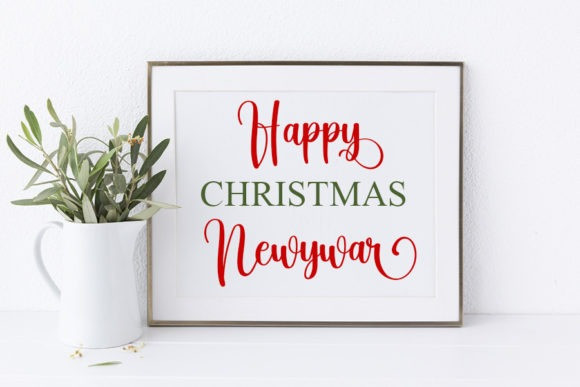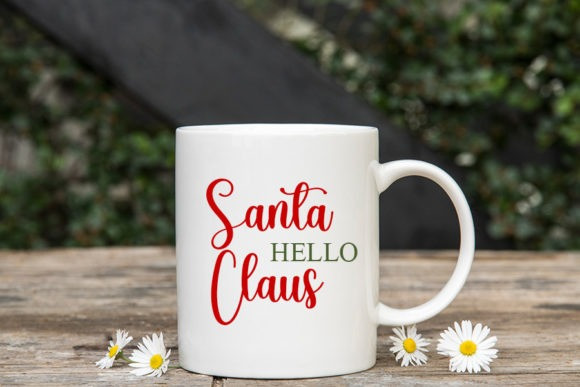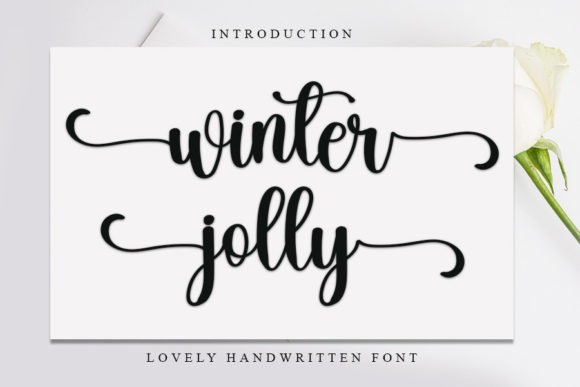
Winter Jolly Font
Winter Jolly Font is an enchanting handwritten font. This delicate script has a wide spectrum of applications ranging from greeting cards to headlines and logos. WinterJolly is PUA encoded which means you can access all glyphs and swashes with ease!